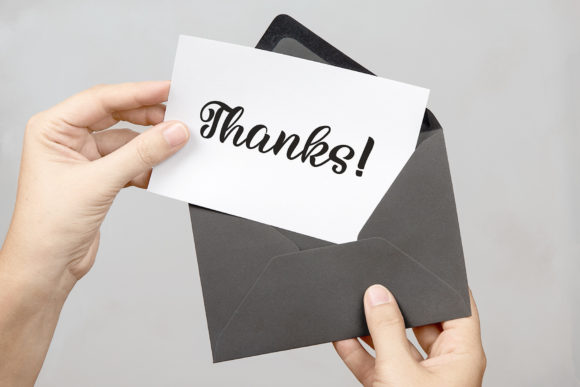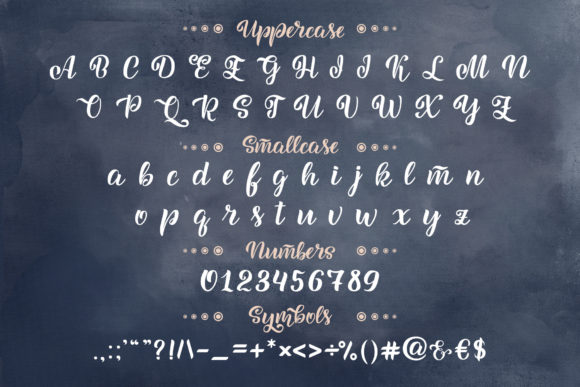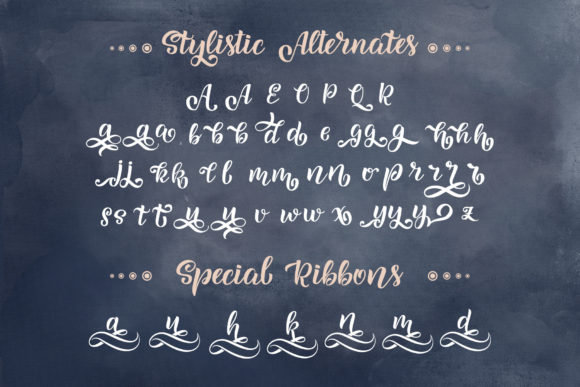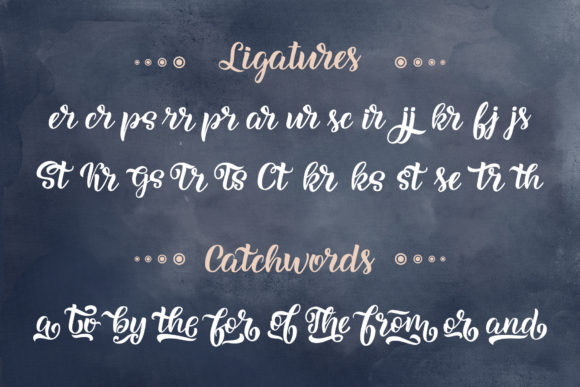
About Anarion Script Font
Anarion Script font is based on hand lettering and was created with a brush pen tool for a truly stylish, unique, and beautiful typeface. It can be used to make quotes and social media posts, logo designs, branding, packaging, and so much more.